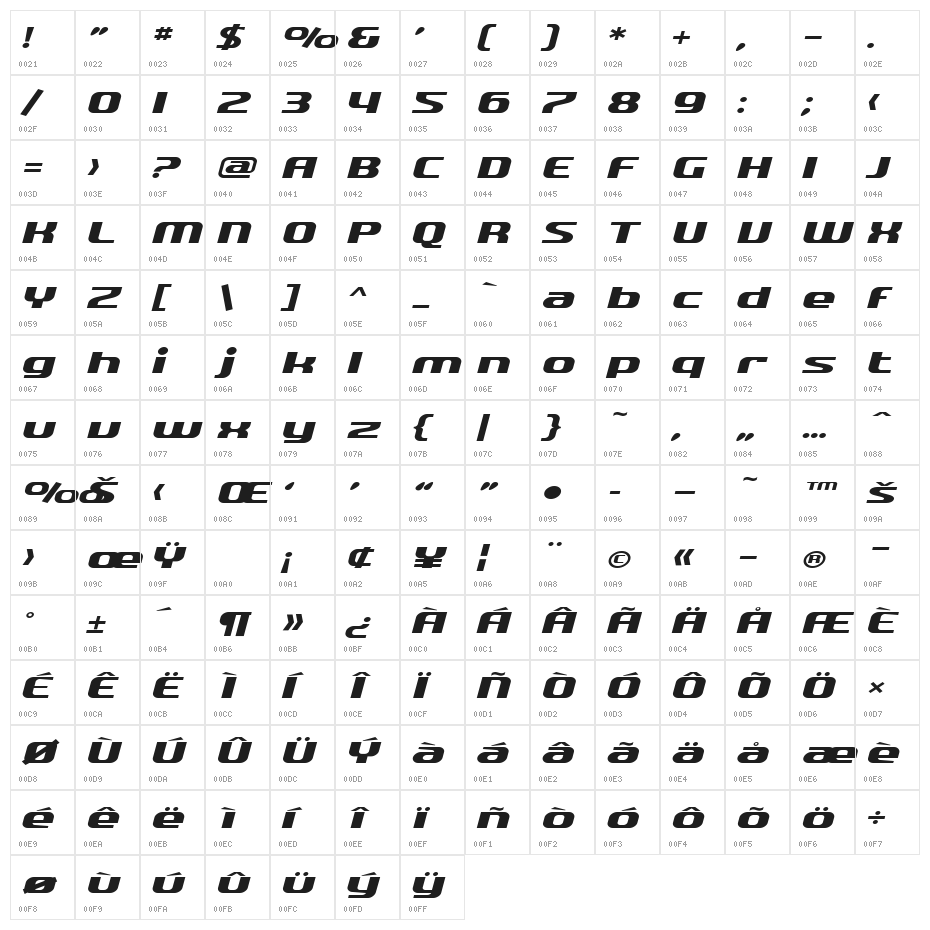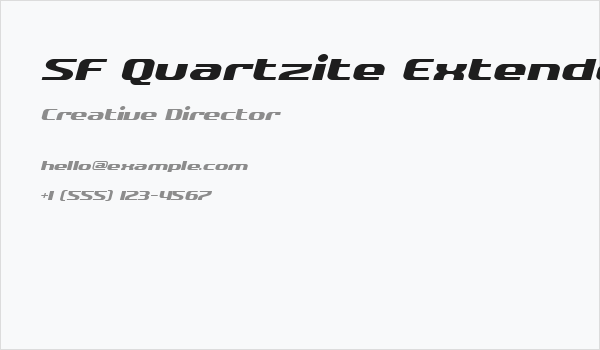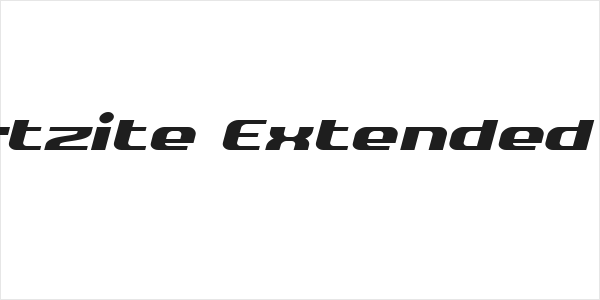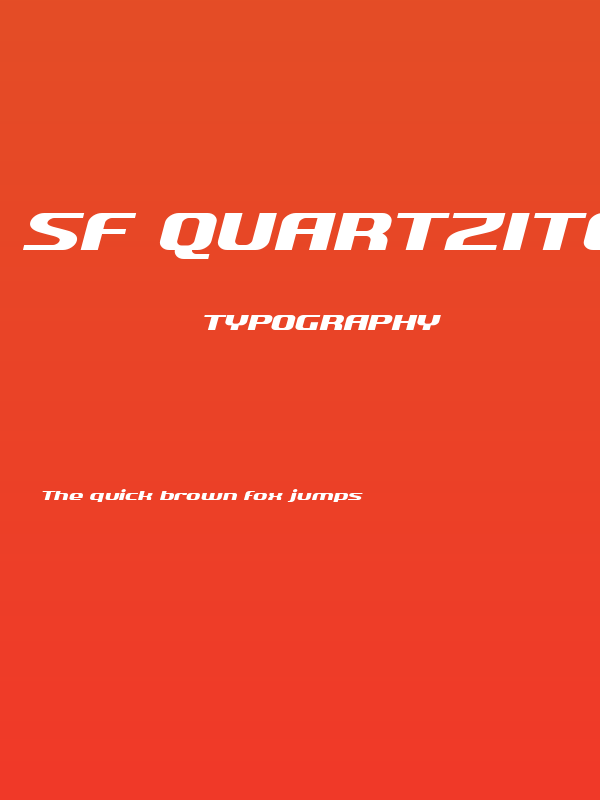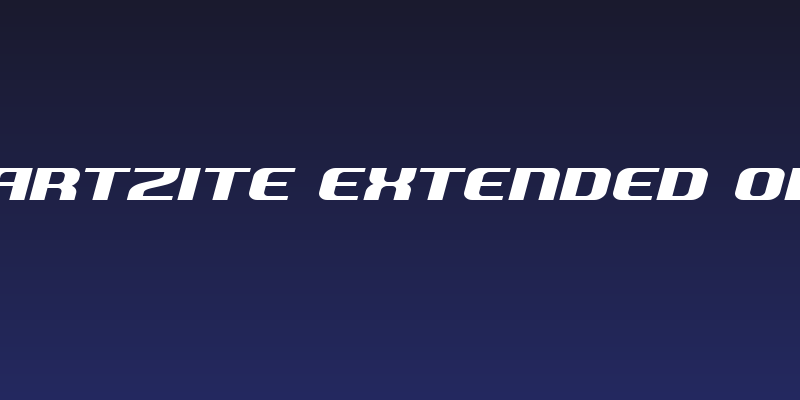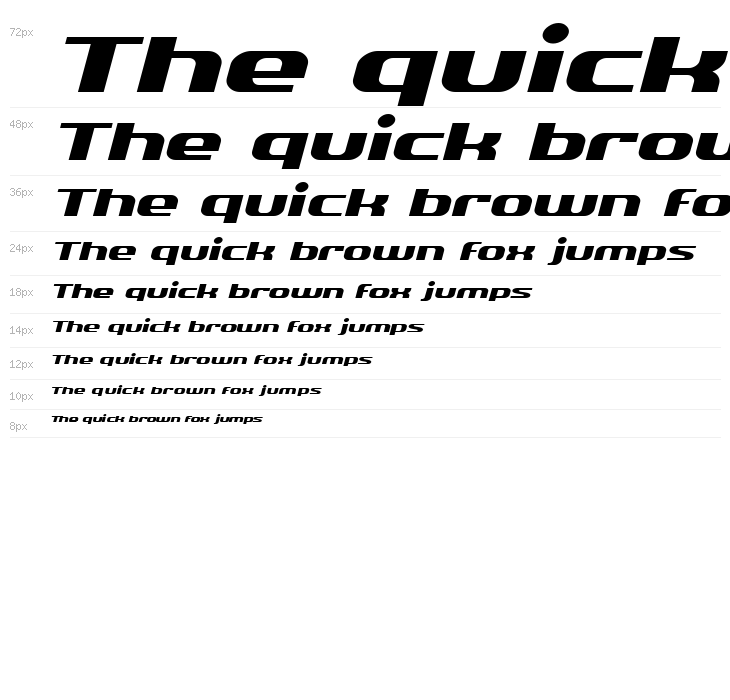
SF Quartzite Extended Oblique Font
SF Quartzite Extended Oblique Description
This font exhibits a modern and dynamic style with a distinct oblique slant, giving it a sense of motion and energy. The characters are bold and extended, providing a strong visual impact. The design features smooth curves and sharp edges, creating a sleek and futuristic appearance. The uppercase and lowercase letters maintain a consistent style, while the numerals and special characters integrate seamlessly, enhancing the font's versatility. The overall design is clean and professional, making it suitable for a variety of creative applications.
| Proposed Projects | Ideal for branding, advertising, sports team logos, and dynamic headlines. |